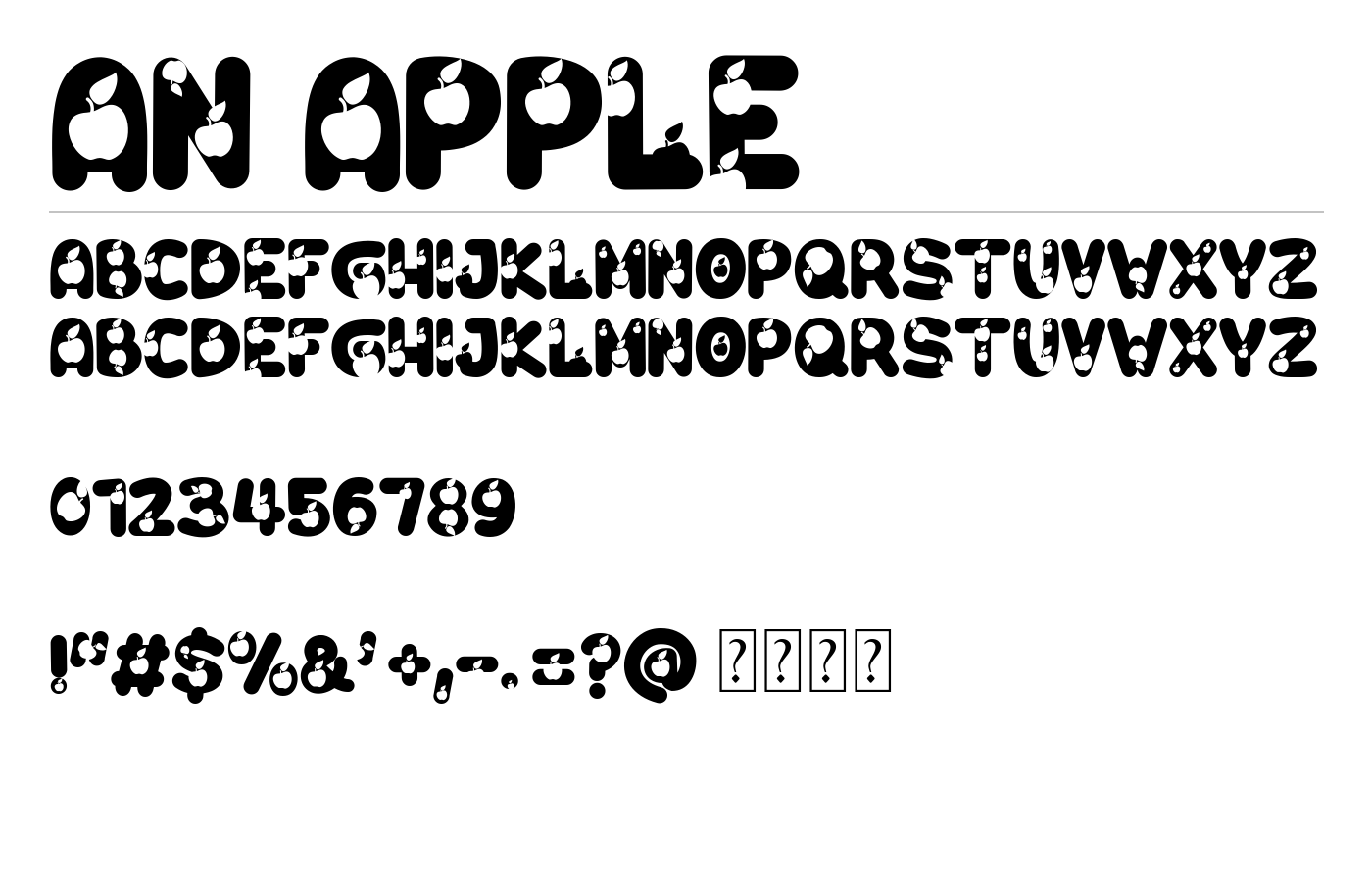
An Apple Font is a playful, bold display typeface featuring thick, rounded letterforms decorated with whimsical apple-shaped cutouts. Its chunky, high-contrast style with quirky details evokes a fun and friendly vibe, making it ideal for children’s books, food branding, and casual, eye-catching headlines. This font’s unique personality instantly grabs attention and adds a cheerful, creative touch to any design.
An Apple Font